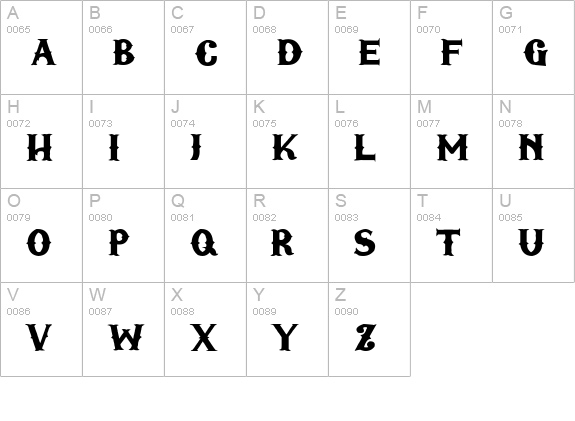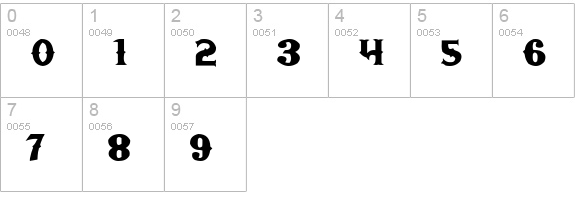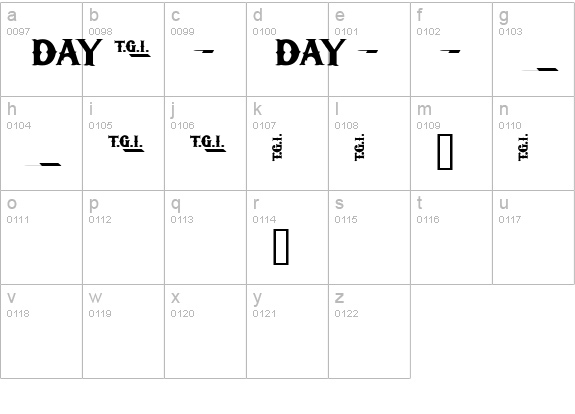
TGIFriday Font Details
Introducing TGIFriday, a vibrant and playful font that exudes excitement and weekend vibes. This font is the perfect choice for any design project that aims to capture the spirit of fun, relaxation, and anticipation that comes with the end of the workweek. TGIFriday features bold and energetic letterforms with a hint of whimsy. Its rounded edges and slightly exaggerated proportions give it a friendly and approachable feel, making it ideal for conveying a sense of warmth and cheerfulness in your designs. But what sets TGIFriday apart is that it is not just visually appealing, it is also freely available to download at FontsMarket.com. Yes, you read that right – this font is absolutely free! Now you can enjoy all the benefits and versatility of TGIFriday without any cost. This generosity allows you to bring your creative visions to life without breaking the bank. Whether you're designing party invitations, promotional materials for a weekend getaway, or simply looking to add a touch of fun to your personal projects, TGIFriday is the font you need. Its wide range of characters and ligatures ensure that you'll have everything you need to create eye-catching and memorable designs. So why wait? Embrace the weekend spirit and download TGIFriday today from FontsMarket.com. Let this font be your go-to choice for adding a dose of joy and excitement to your design projects. With TGIFriday, every day will feel like the start of a fabulous weekend.